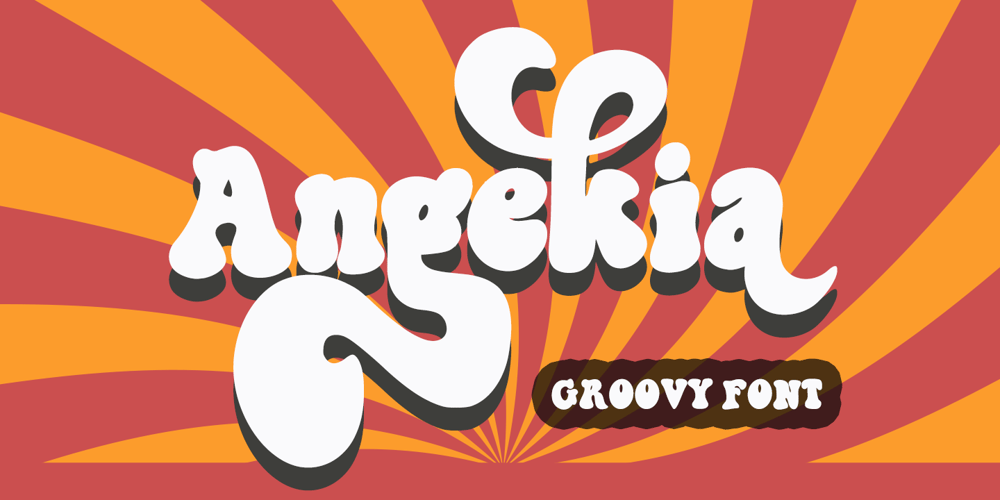
Angekia Font Family was designed by Muhammad Zaini and published by Cocodesign. Angekia contains 1 styles and family package options. Angekia a groovy fonts, including Regular. This font is casual and beautiful . It can be used for various purposes. such as logos, product packaging, wedding invitations, branding, headlines, signage, labels, signatures, book covers, posters, quotes, and many more.If you need help or have questions, please let me know. I am happy to help 🙂 Thank you & Congratulations on Designing